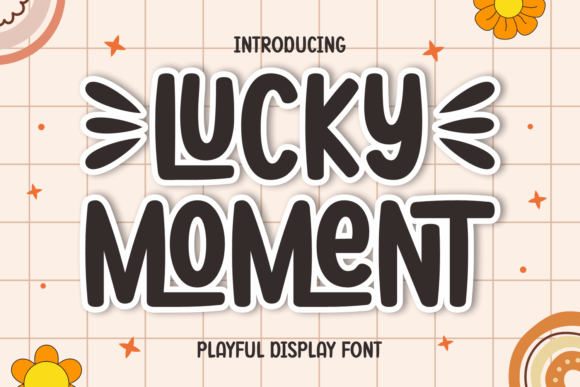
Step into the world of Lucky Moment Font, a display font brimming with playful charm and captivating character. Its unique design and cheerful vibe make it the perfect choice for adding a touch of whimsy and fun to your creative projects. Whether you're crafting playful greeting cards, designing eye-catching presentations, or creating vibrant restaurant menus, Lucky Moment Font will bring your ideas to life with its distinctive style.
With its PUA encoding, you'll have effortless access to a treasure trove of amazing glyphs and ligatures, empowering you to unleash your creativity and make your designs truly shine. Dive into a world of limitless possibilities, where Lucky Moment Font transforms your projects into captivating expressions of joy and imagination.
Embrace the magic of Lucky Moment Font and watch as your designs take center stage. Its playful personality is perfect for capturing the attention of kids, making it an ideal choice for school themes and educational materials. Let your creativity soar as you craft enchanting invitations, captivating posters, and vibrant social media graphics that are sure to leave a lasting impression.
Don't miss out on the chance to add a touch of delight to your design arsenal. Lucky Moment Font is the key to unlocking a world of creative possibilities, waiting to be explored. Embrace its playful spirit and let your imagination run wild. Join the growing community of designers who have discovered the magic of Lucky Moment Font and elevate your work to new heights of charm and originality.